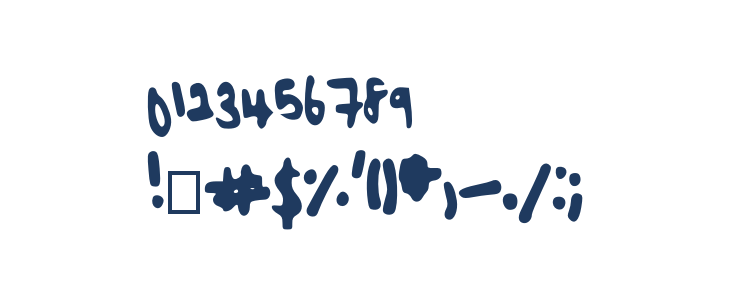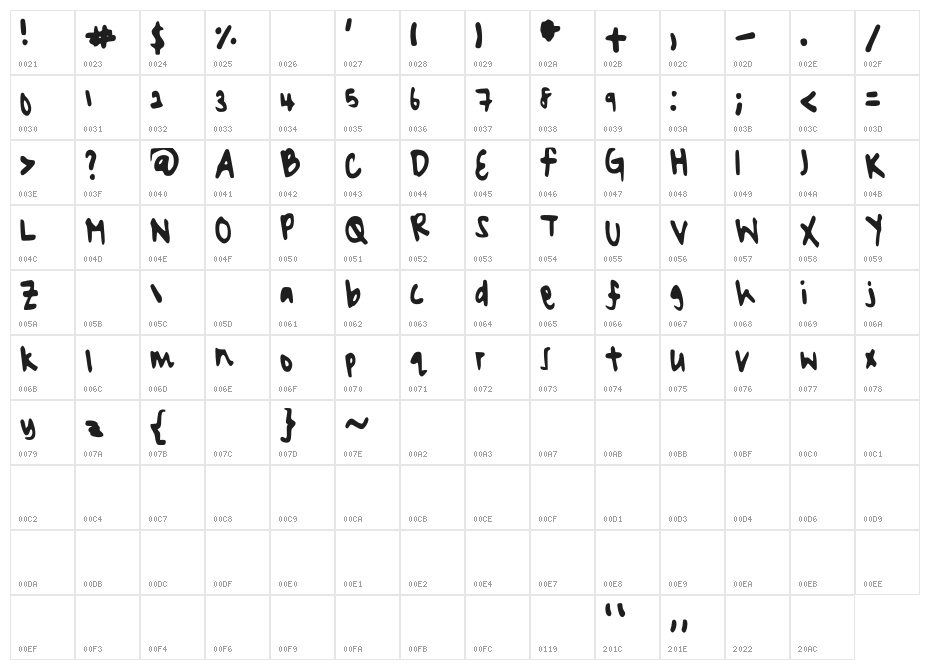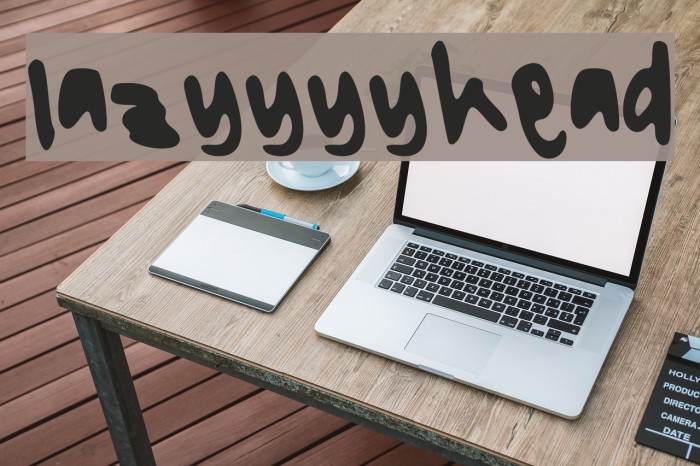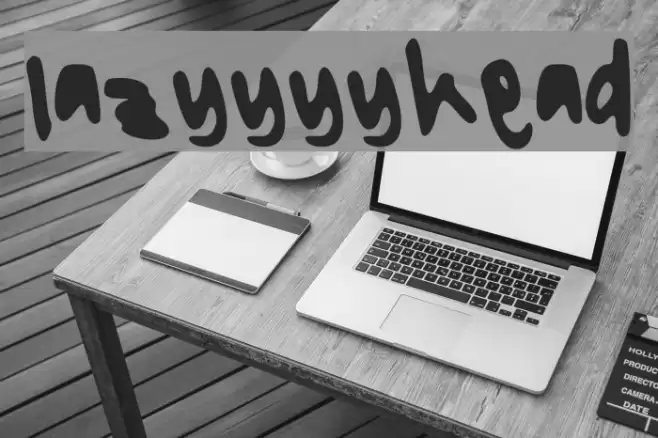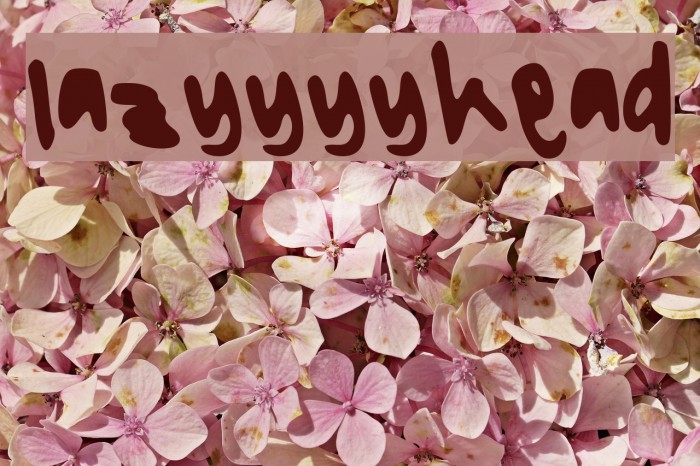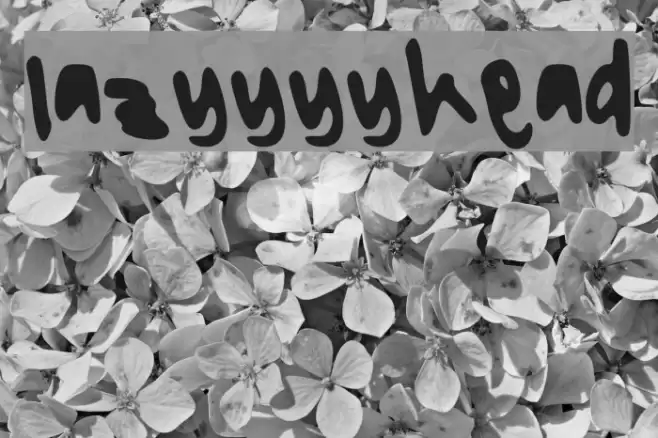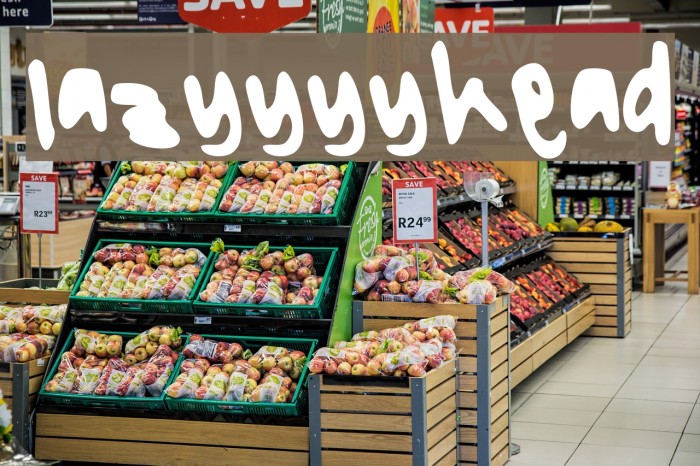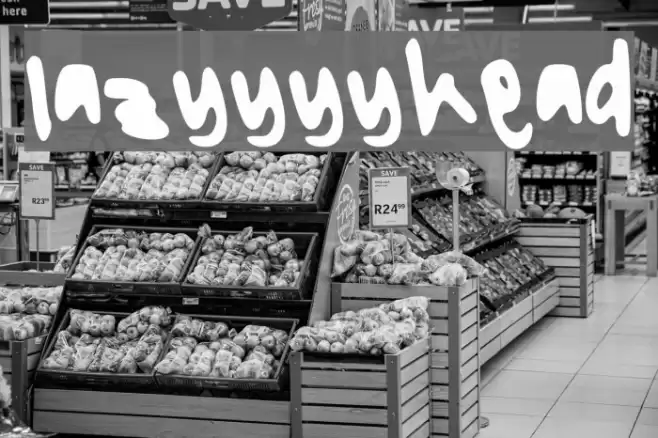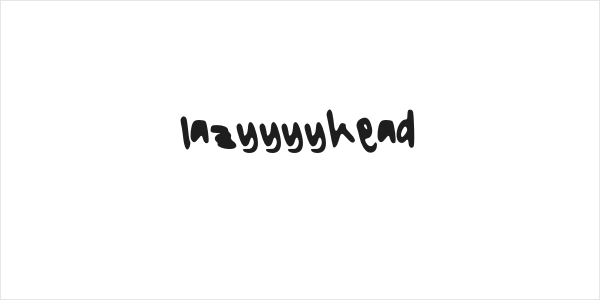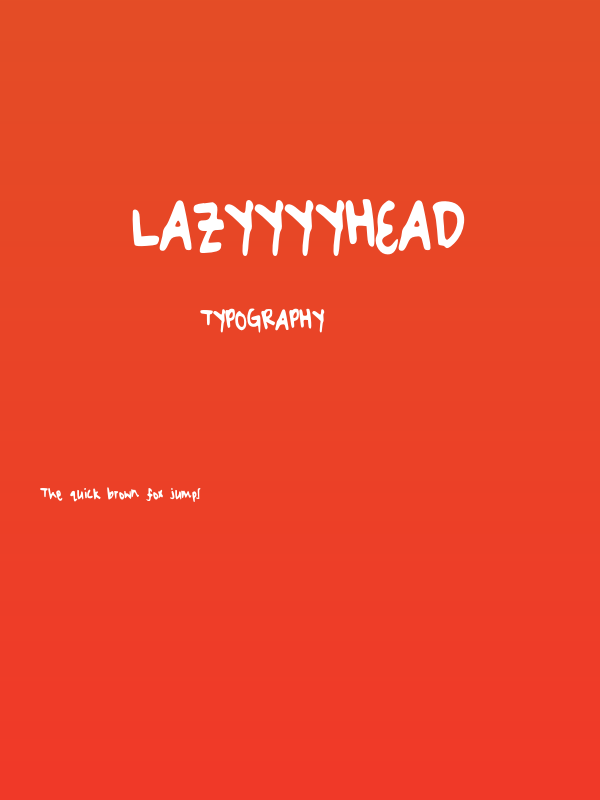
lazyyyyhead Font
lazyyyyhead Description
This font features a playful and bold handwritten style, characterized by its thick, uneven strokes and casual appearance. The letters have a whimsical, almost childlike quality, with irregular shapes and varying sizes that give it a lively and dynamic feel. The uppercase and lowercase letters maintain a consistent style, with rounded edges and a slightly tilted orientation. The numbers and special characters follow the same playful design, making the font suitable for informal and creative projects. Its unique and eye-catching style makes it ideal for designs that require a touch of fun and personality.
| Overall Style | Playful, Casual |
| Proposed Projects | Great for children's books, playful branding, greeting cards, and creative posters. |